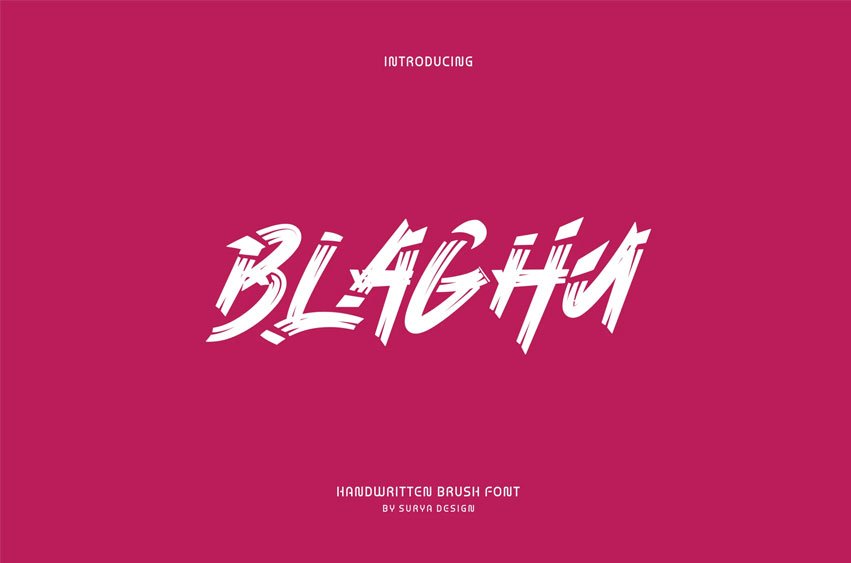
Blaghu Font Modern Font is a bold and authentic display font. The font is suitable for any branding project, like logos, esport, and many more.
outstanding in a wide range of contexts.